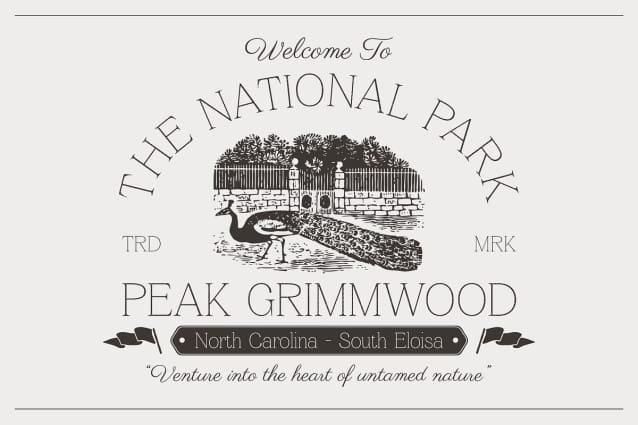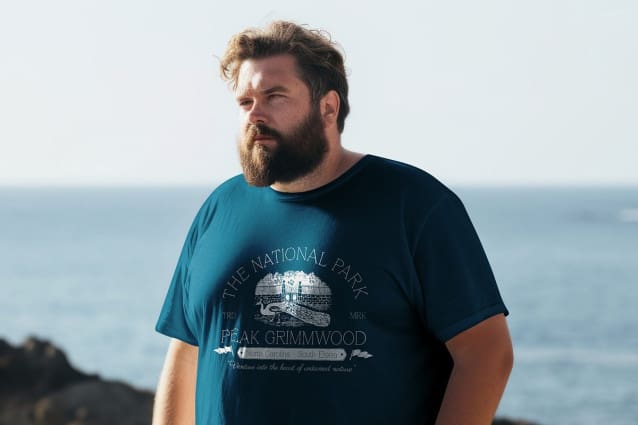
Leirent Stamp Font
Leirent Stamp Font is a modern serif font that effortlessly combines elegance with a textured, vintage touch. With its carefully crafted letterforms and refined details, this font stands out in a crowded design landscape. Each character is designed to evoke sophistication while retaining a sense of warmth and authenticity, making it an ideal choice for projects that demand both style and character.
Sophisticated Details for Upscale Appeal The unique stamp effect of Leirent Stamp enhances its refined letterforms, adding a layer of depth that elevates any design. The delicate curves and sharp serifs provide an air of professionalism, making it suitable for upscale branding, high-end invitations, and polished editorial layouts. Whether you’re designing a luxurious wedding invitation or a sleek corporate brochure, this font communicates a sense of quality and craftsmanship.
Vintage Charm for Timeless Projects Leirent Stamp’s stamp effect introduces a charming vintage quality, allowing it to stand out in both digital and print media. The texture not only adds visual interest but also connects the design to a rich history of typography. This font is perfect for projects that seek to convey a sense of tradition while remaining relevant in today’s fast-paced world. From artful posters to nostalgic branding, Leirent Stamp evokes a sense of timeless appeal that resonates with audiences.